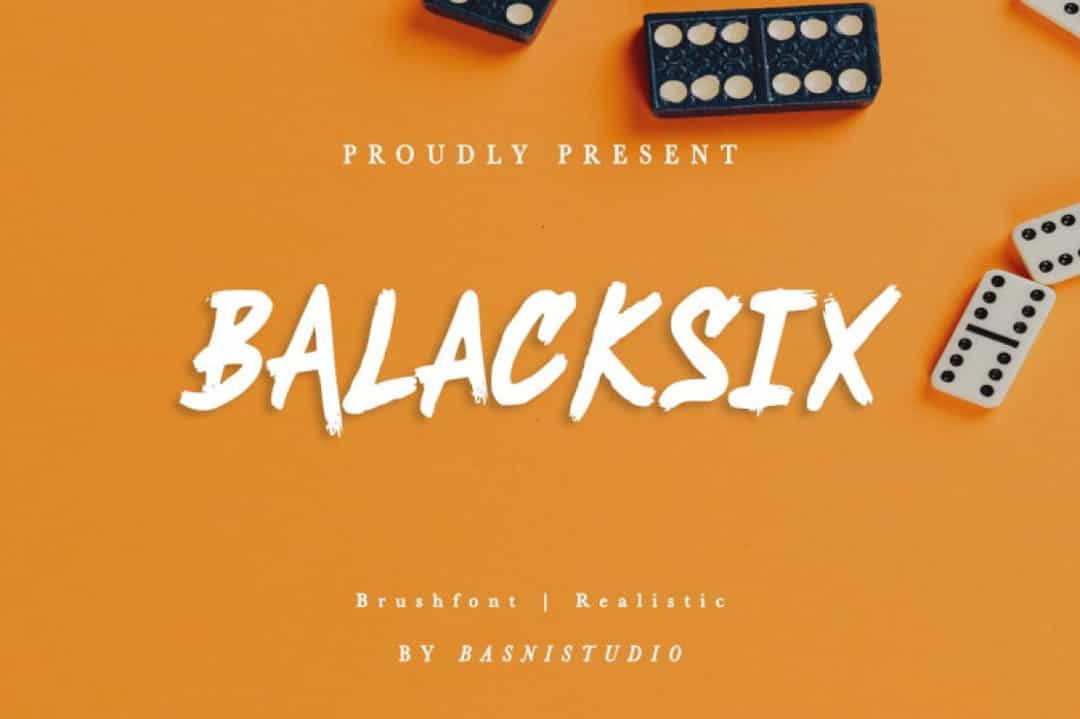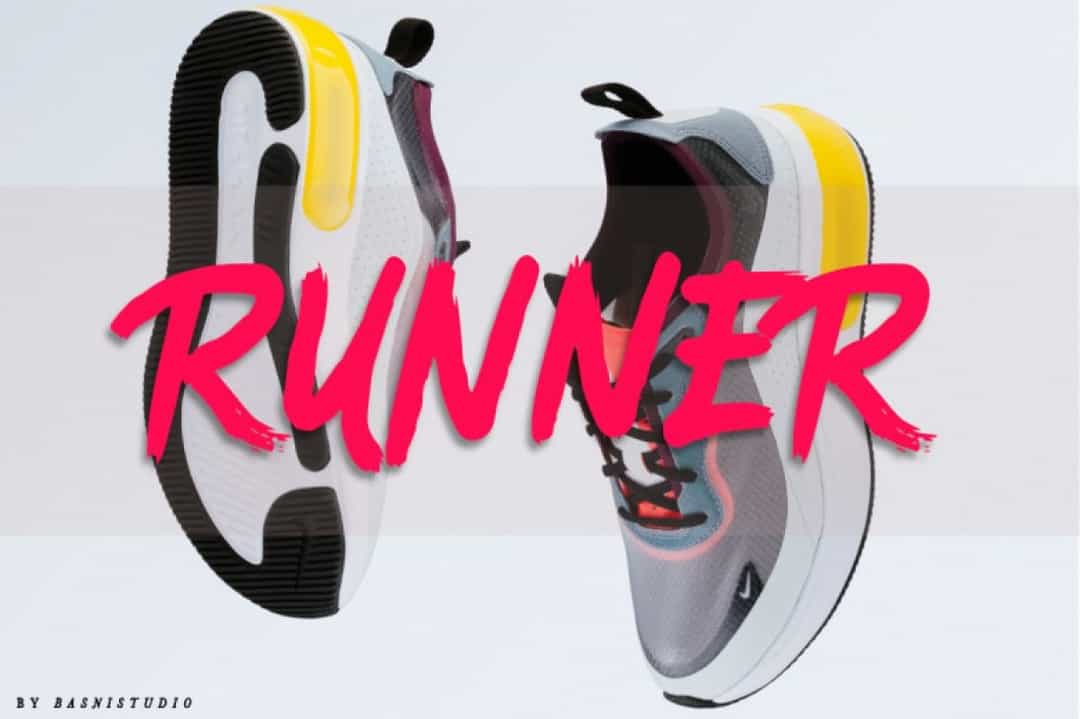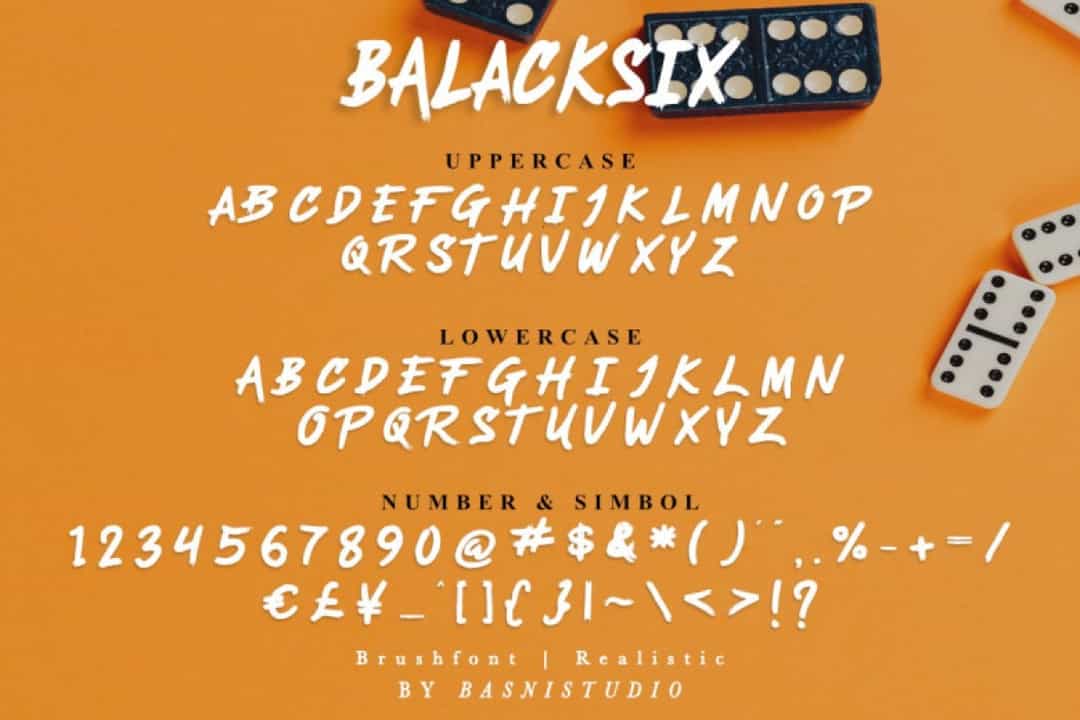
Balacksix is a natural brush font. Ideal for posters, logos, magazine covers books banners book covers and more! Make this unique display font your go-to design font by matching its vast array of designs into beautiful masterpieces – it can help make them shine! All Caps Included